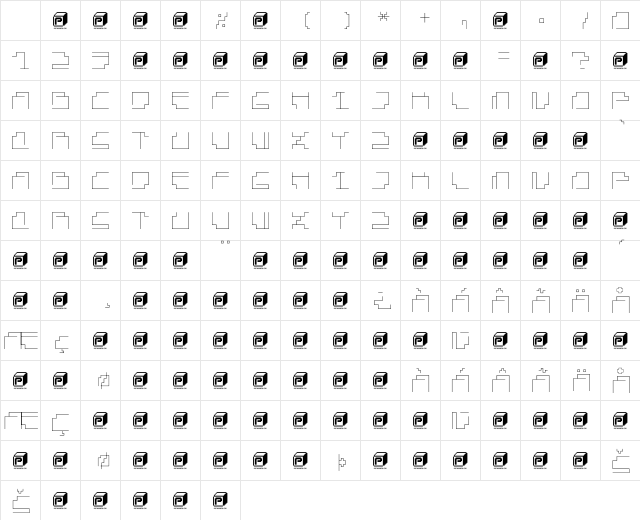
Paper Cube is a composed and adaptable typeface that performs quietly and consistently across a wide range of design contexts. Its slender proportions lend an understated elegance to any composition.